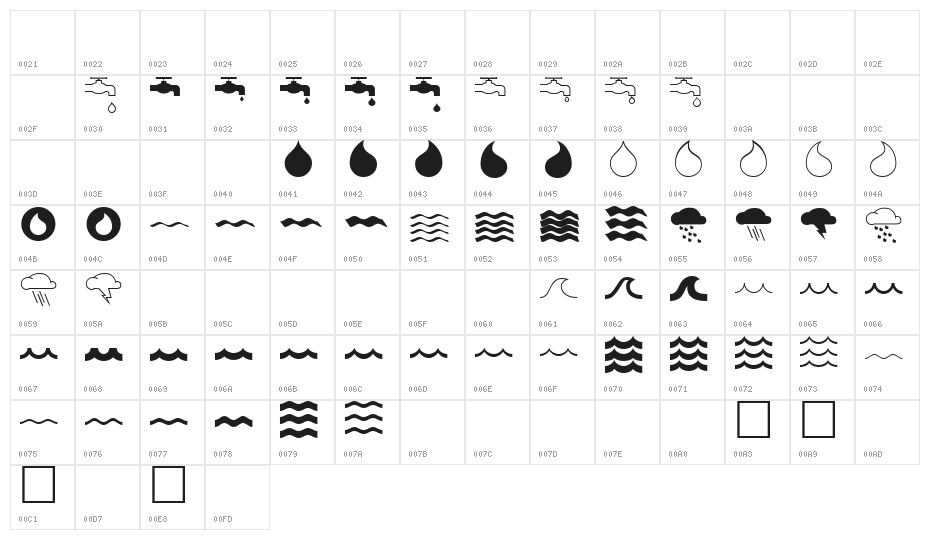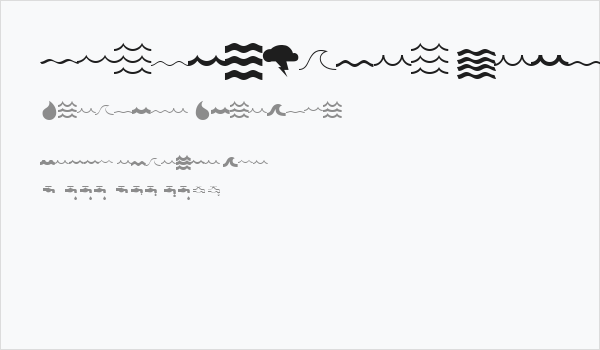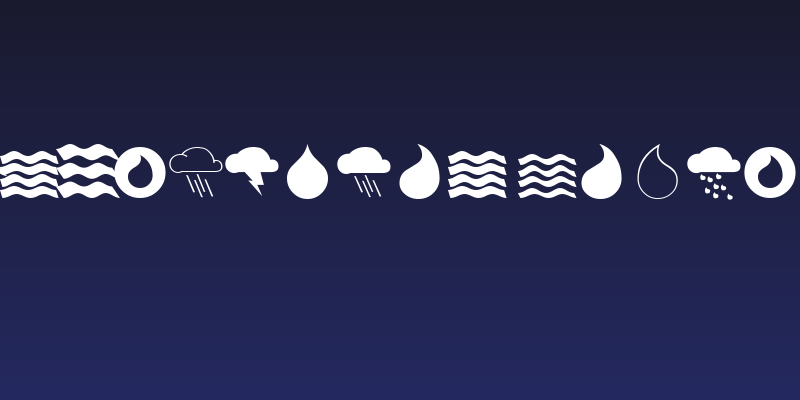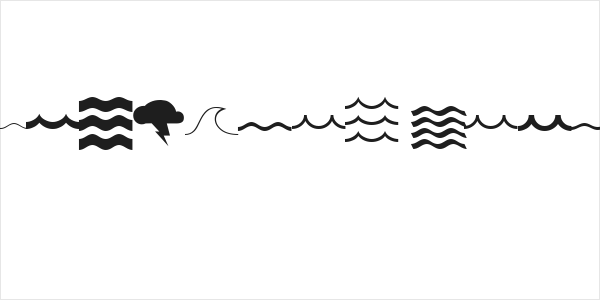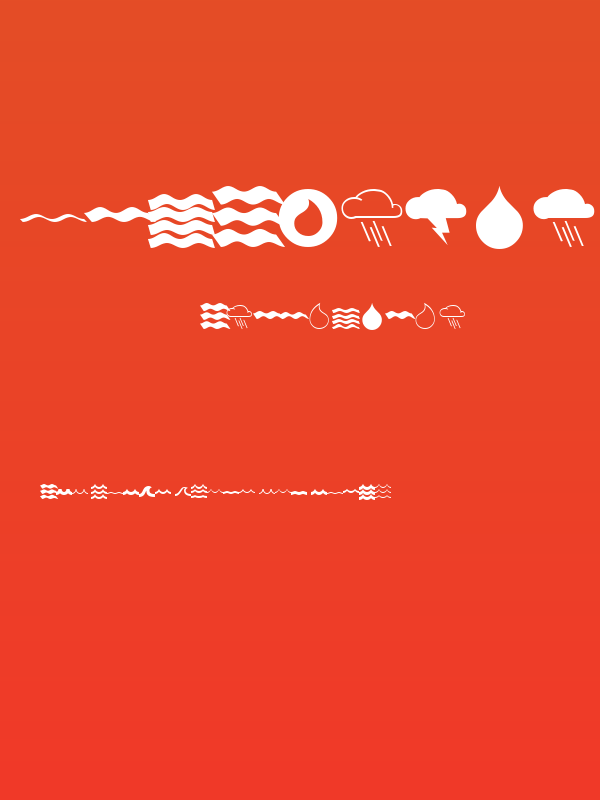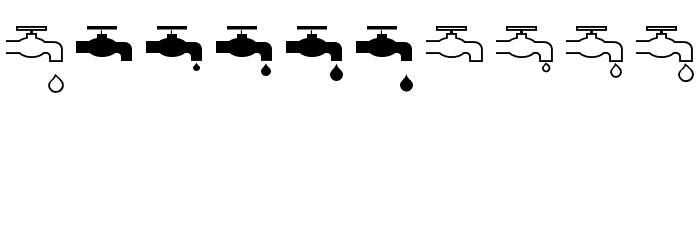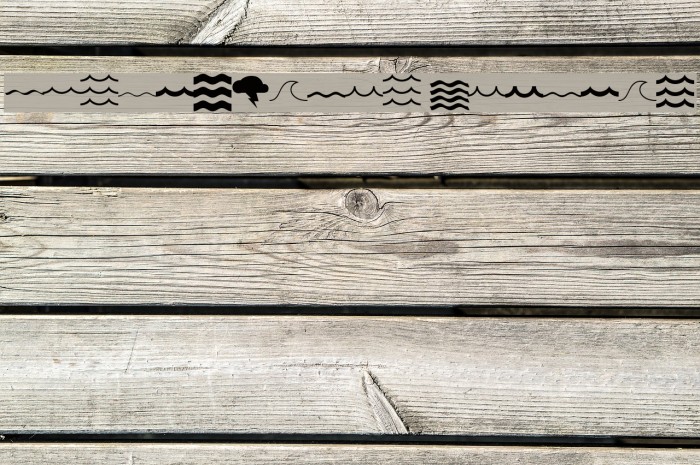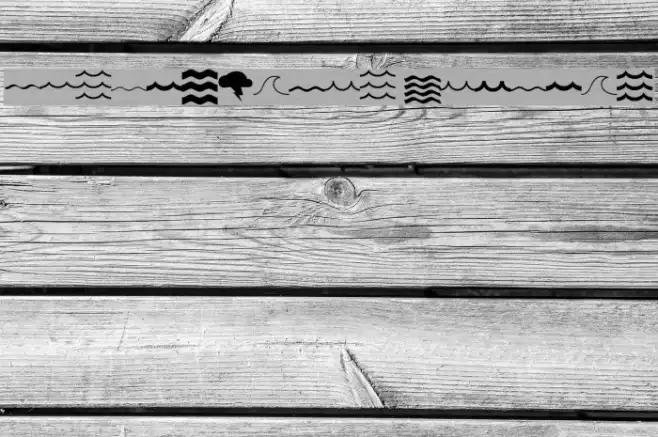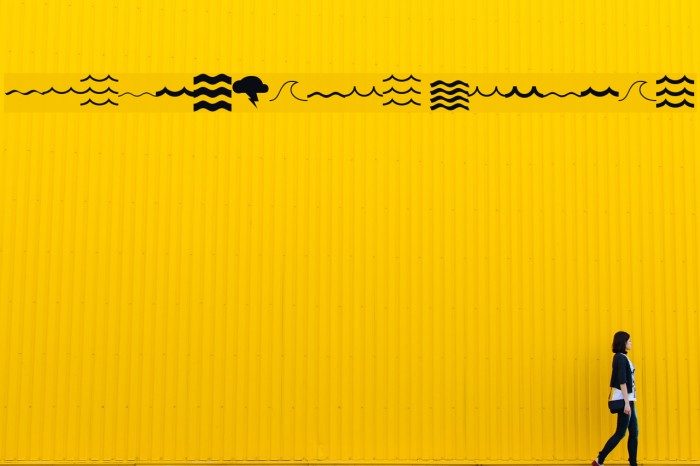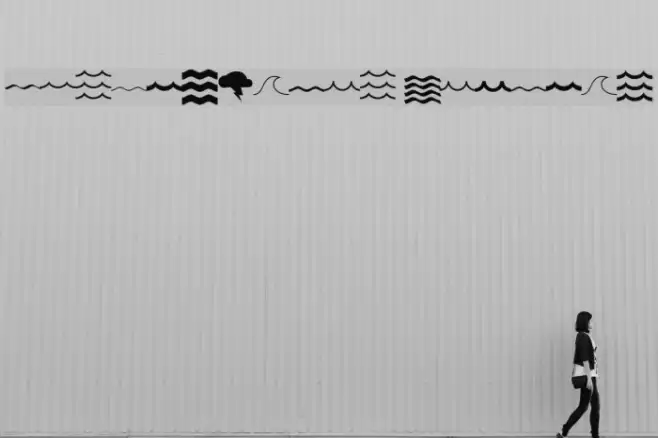
MostlyWaves Regular Font
MostlyWaves Regular Description
This is a decorative font featuring a variety of water-themed symbols and icons. The characters include stylized water droplets, waves, clouds with rain, and faucet designs. Each symbol is crafted with bold, clear lines, making them highly recognizable and visually striking. The font does not include traditional alphanumeric characters but instead focuses on thematic imagery related to water and weather. The symbols vary in complexity from simple outlines to more detailed illustrations, providing a versatile range of visual elements for creative projects.
| Proposed Projects | Ideal for environmental campaigns, water conservation projects, educational materials on weather, and creative designs requiring thematic symbols. |